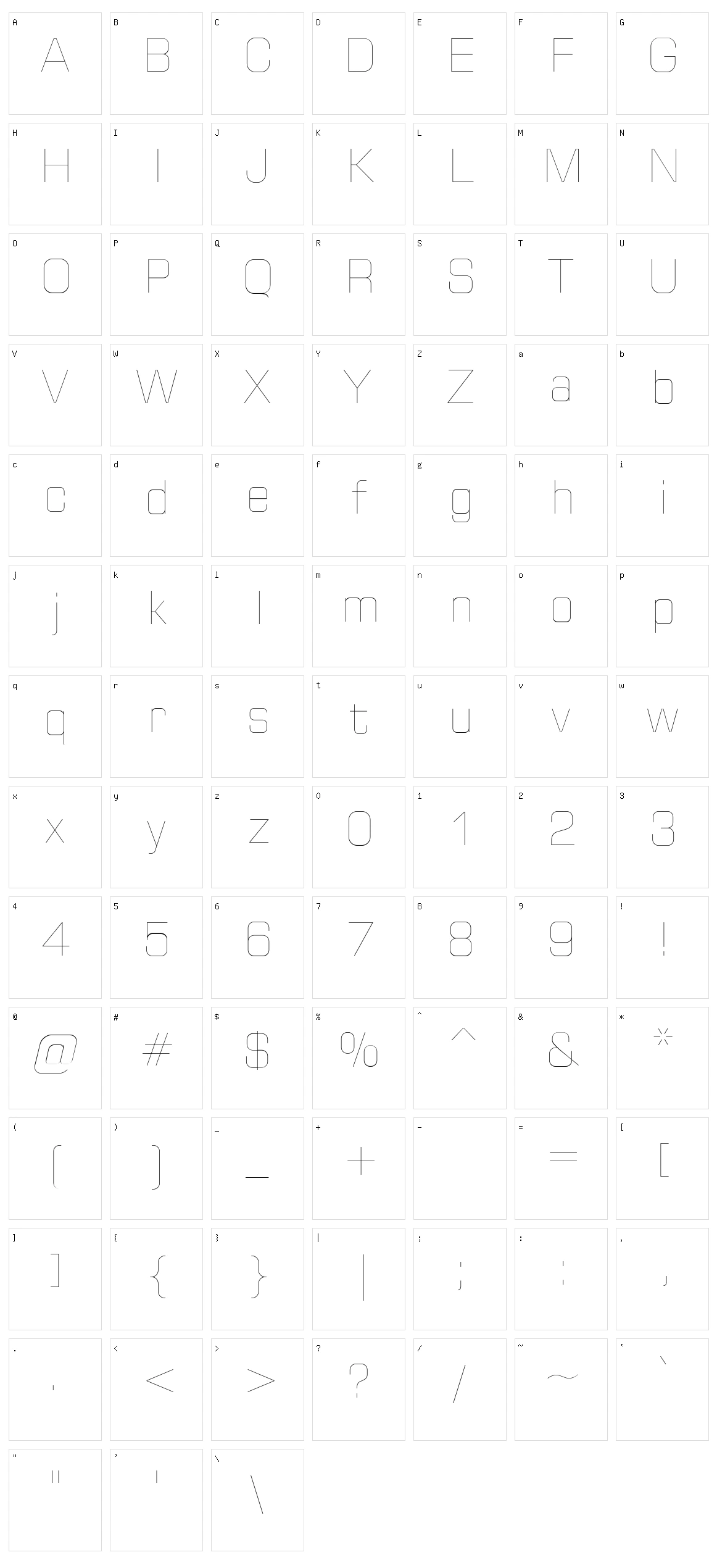
The free font Huntkey is carefully designed by Picatype Design Studio, showcasing a thoughtful balance of creativity and usability and falls under the Sans serif font style. When you download the ZIP file, it contains only 26.67 KB of font files, making it lightweight and quick to download. Please review the license details below to understand permitted usage and distribution rights. If license information is not available, we recommend using this font for personal projects only or contacting the author directly for commercial usage permissions.